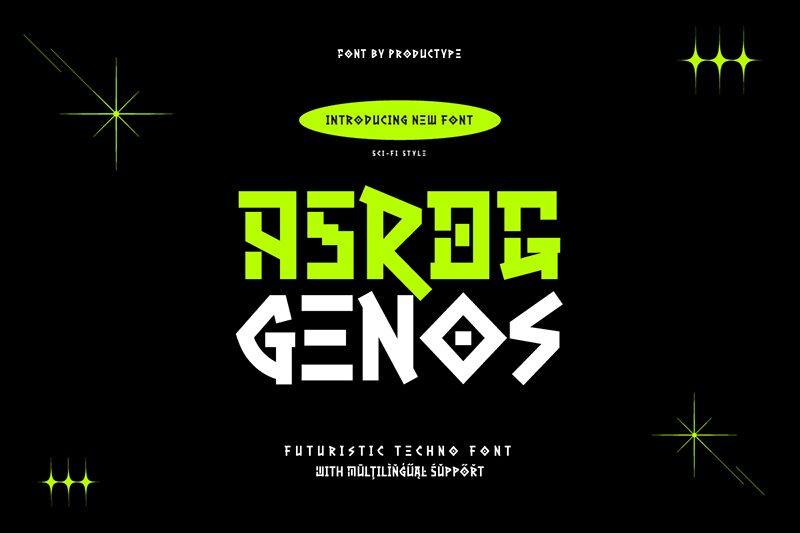
Asrog Genos font family by productype.com is a visually striking free fundamental typeface with inspirations from the innovative digital world. The collection houses fonts that combine both geometric and modular characteristics for a display that has a bold impact. Designed for readers attentive to detail, however, this font style will not fail to captivate amateurs with its peculiar character design.
Out-of-this-world projects need to be memorable, so designers try to incorporate futuristic fonts like Asrog Genos in their typography. Bringing a modern twist, it adds value to project identities, especially when it comes to branding and packaging or advertisements and posters. The typeface can also be engaging for logo design, app interfaces, relevant printouts, branding projects, and more!